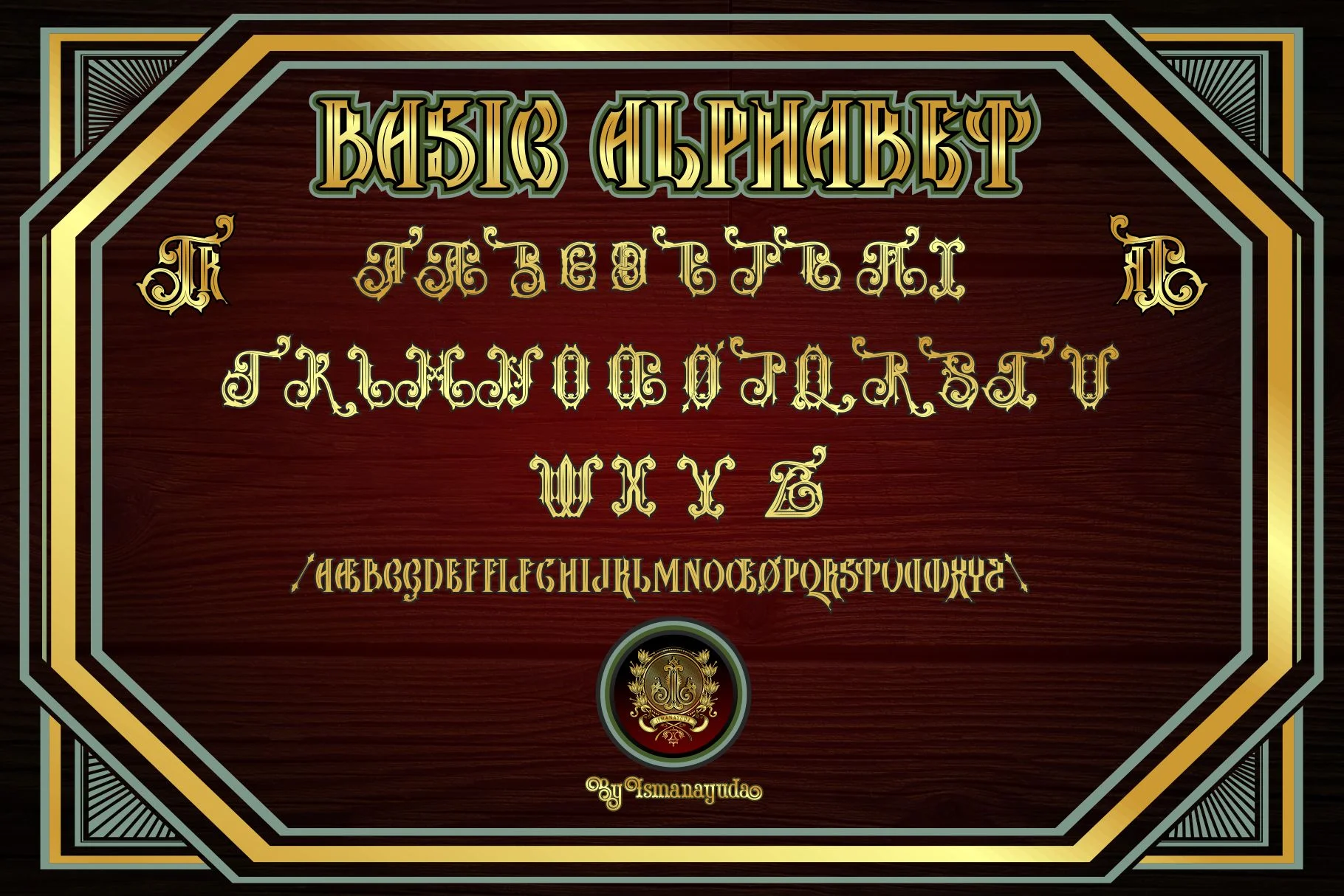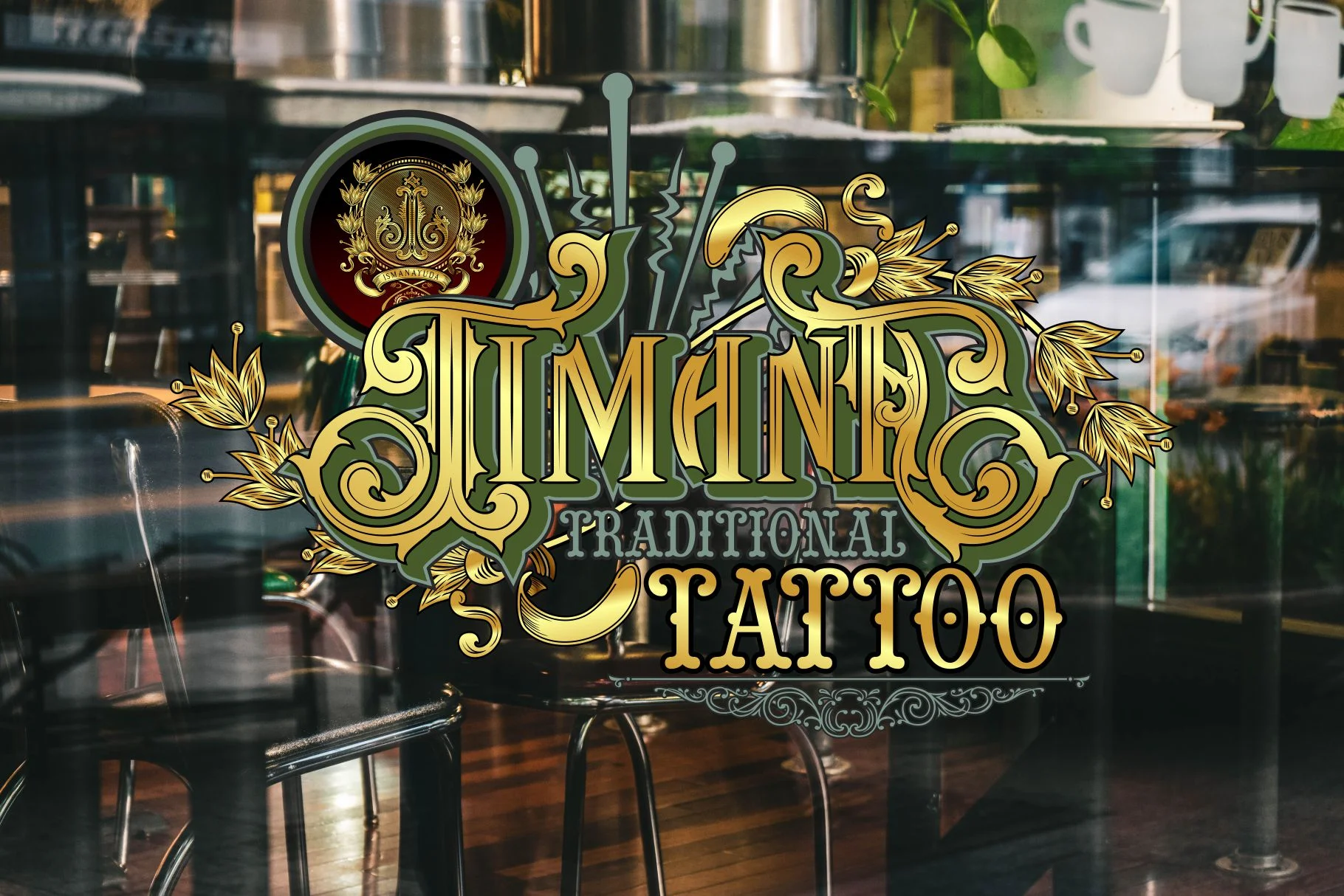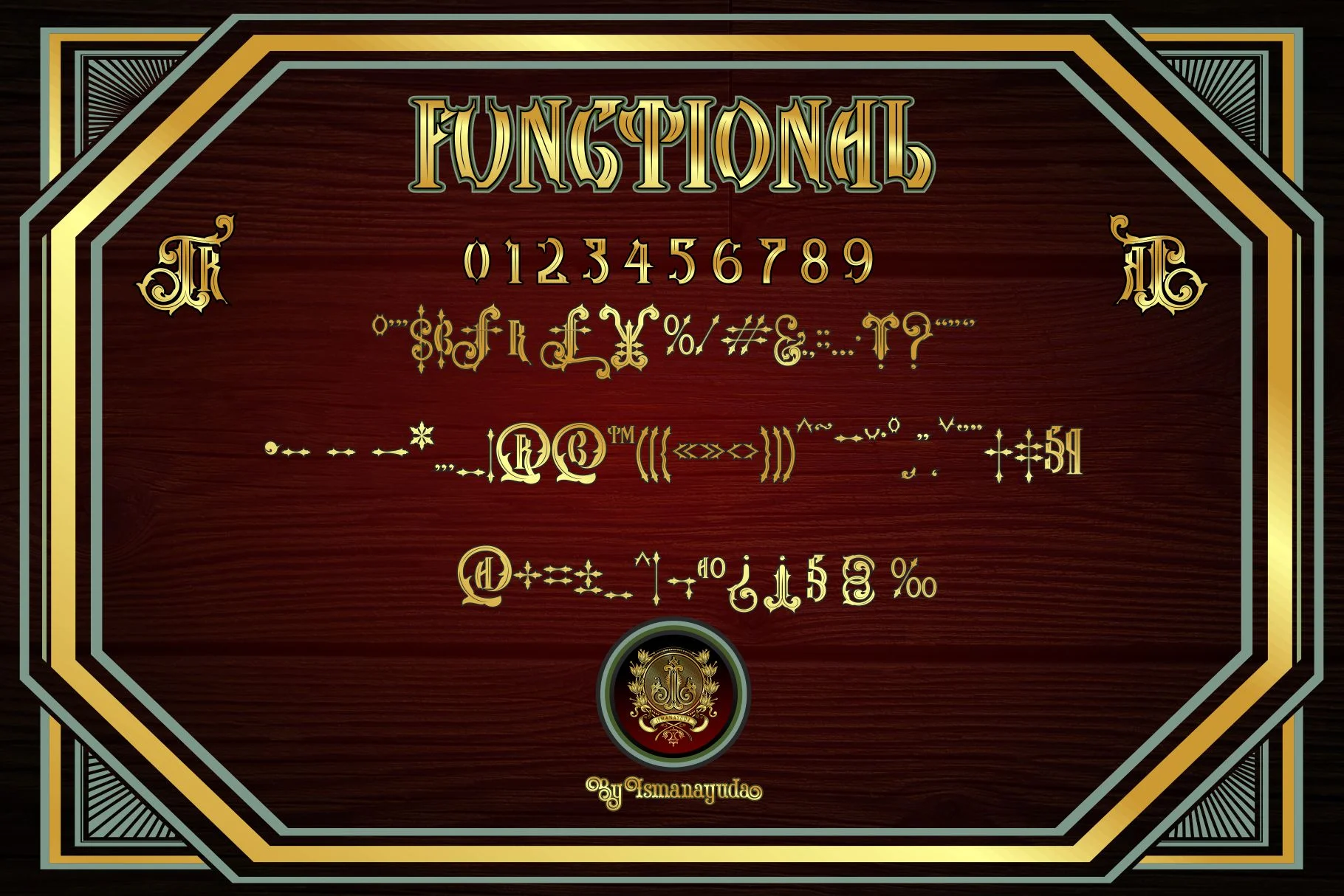
Tina Rasa
Tinarasa is a creative gothic-inspired display font characterized by its strong blackletter letterforms. The typeface features two distinct characters—one being a primary bold script and the other enriched with intricate, flowing Victorian-style ornaments and flourishes. Its dramatic swashes and sharp, calligraphic edges give it a classic yet creative aesthetic, making it particularly well-suited for logos, tattoos, branding, and coffee shop signage.